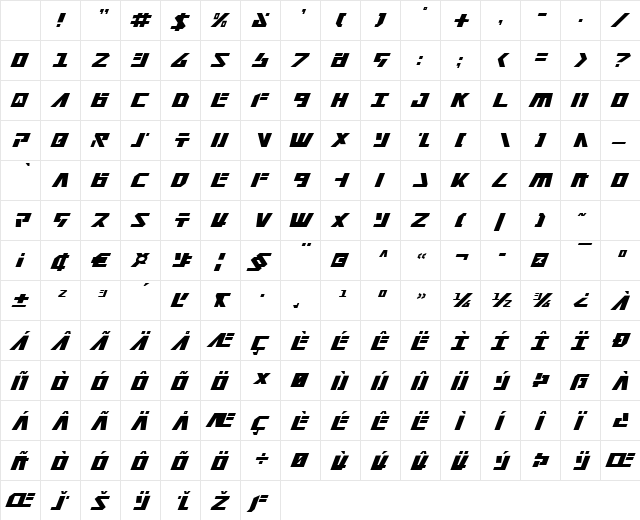
Complete Falconhead Italic glyph index. Displaying only characters natively supported by Falconhead Italic font.
Falconhead is a composed and adaptable typeface that performs quietly and consistently across a wide range of design contexts. The slanted form adds forward momentum and visual energy.